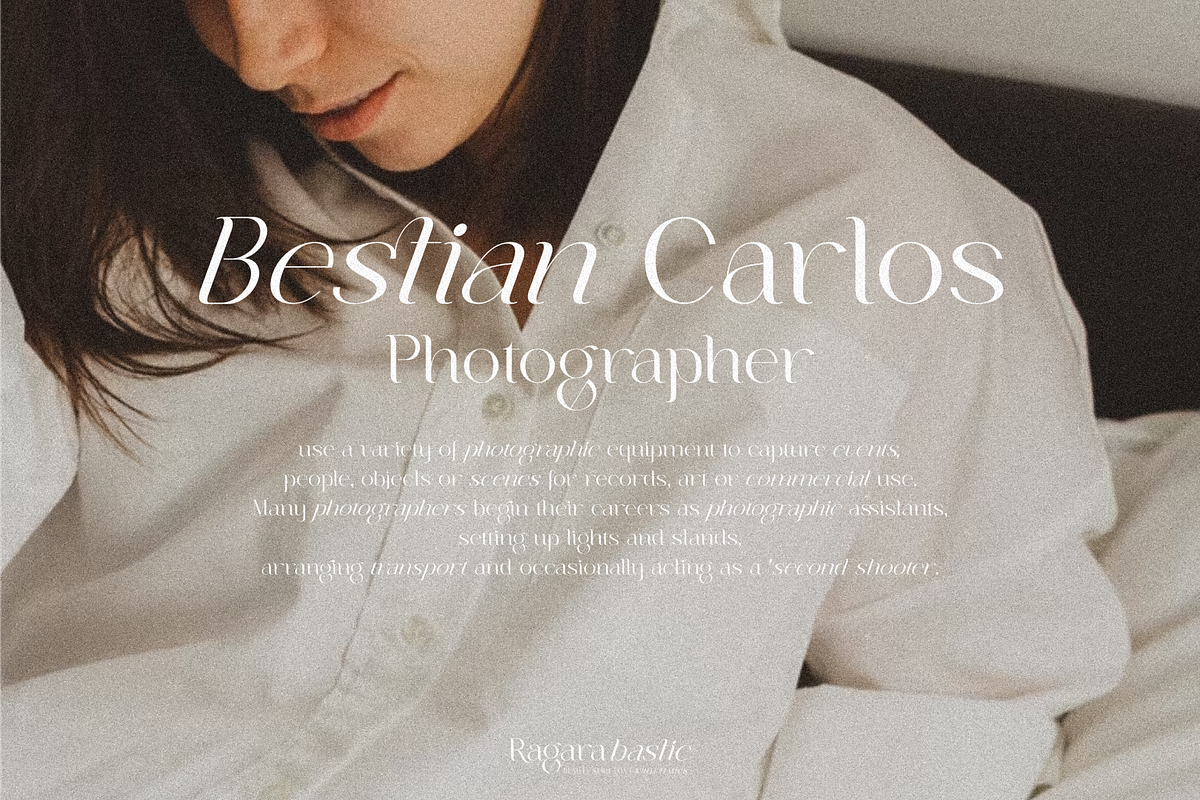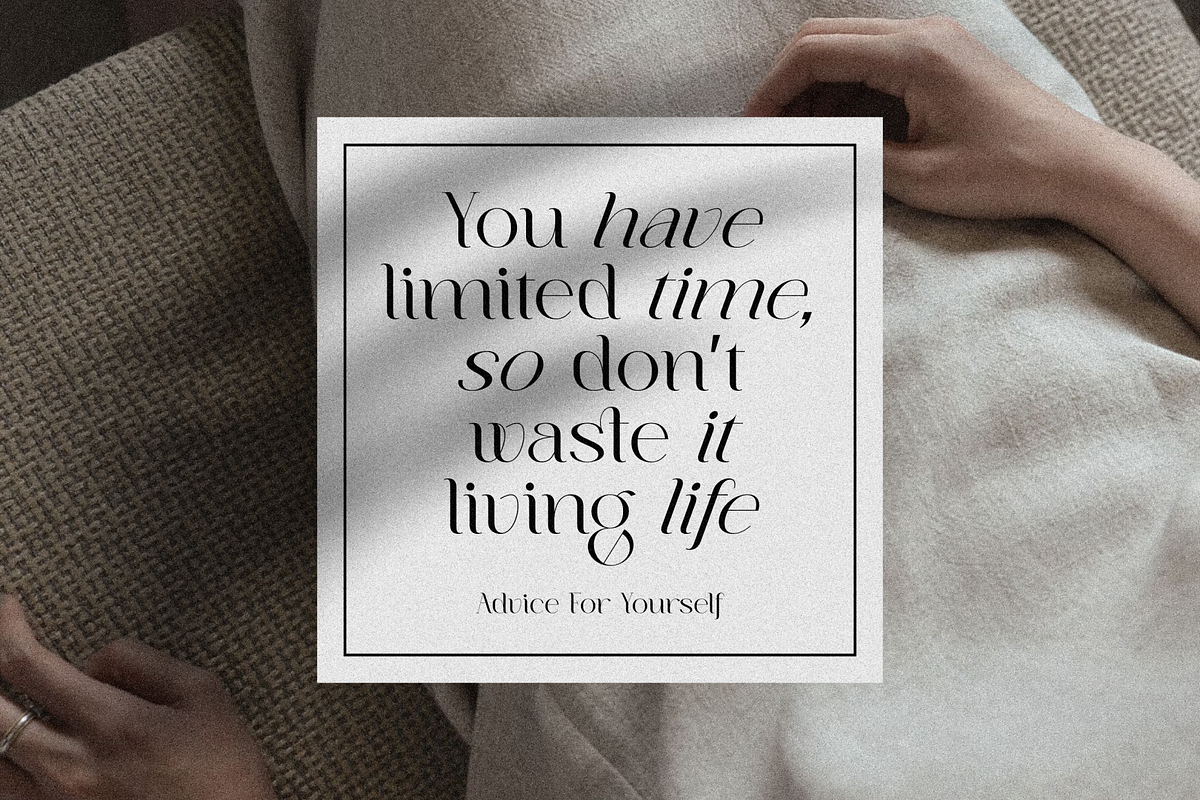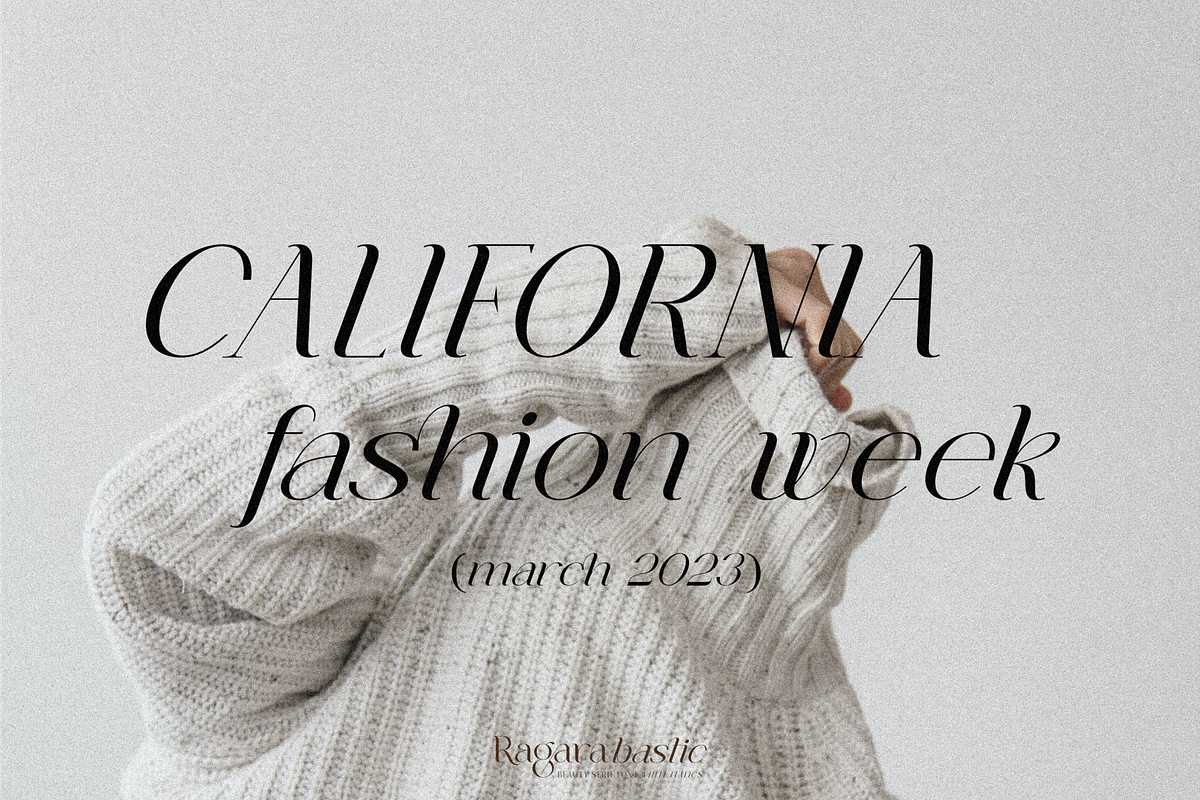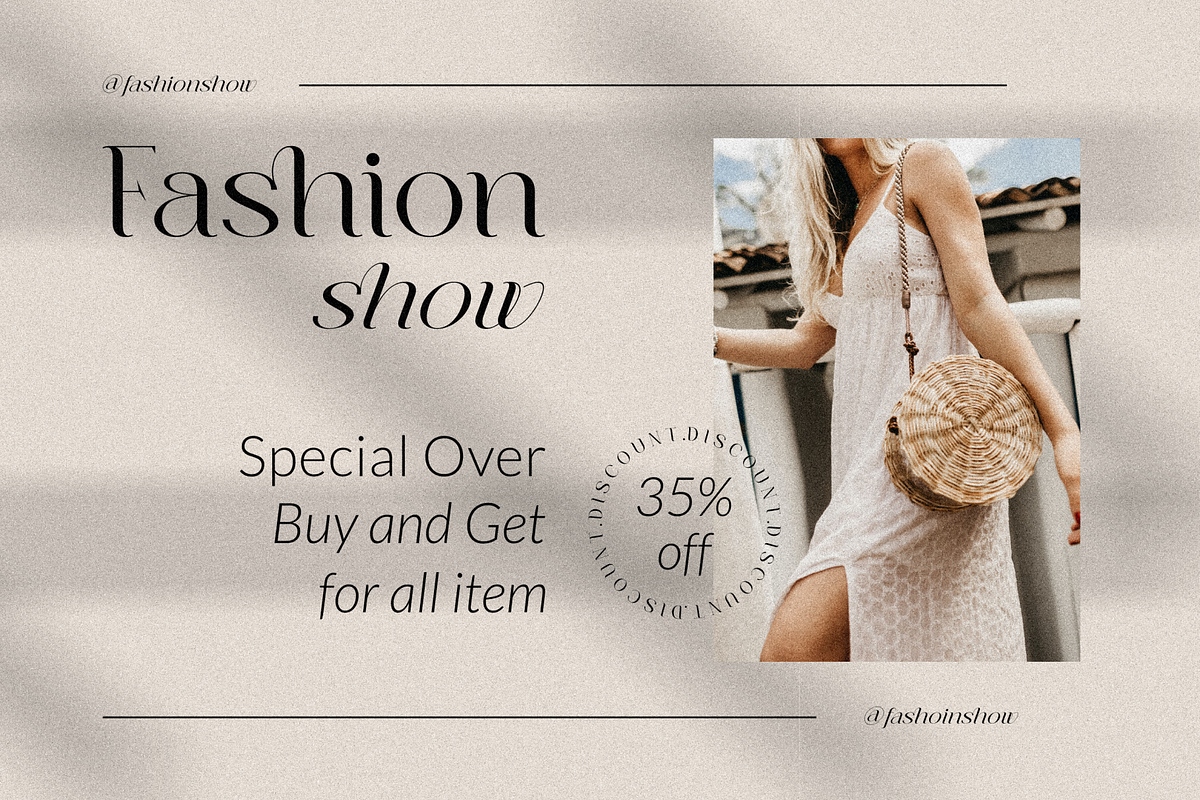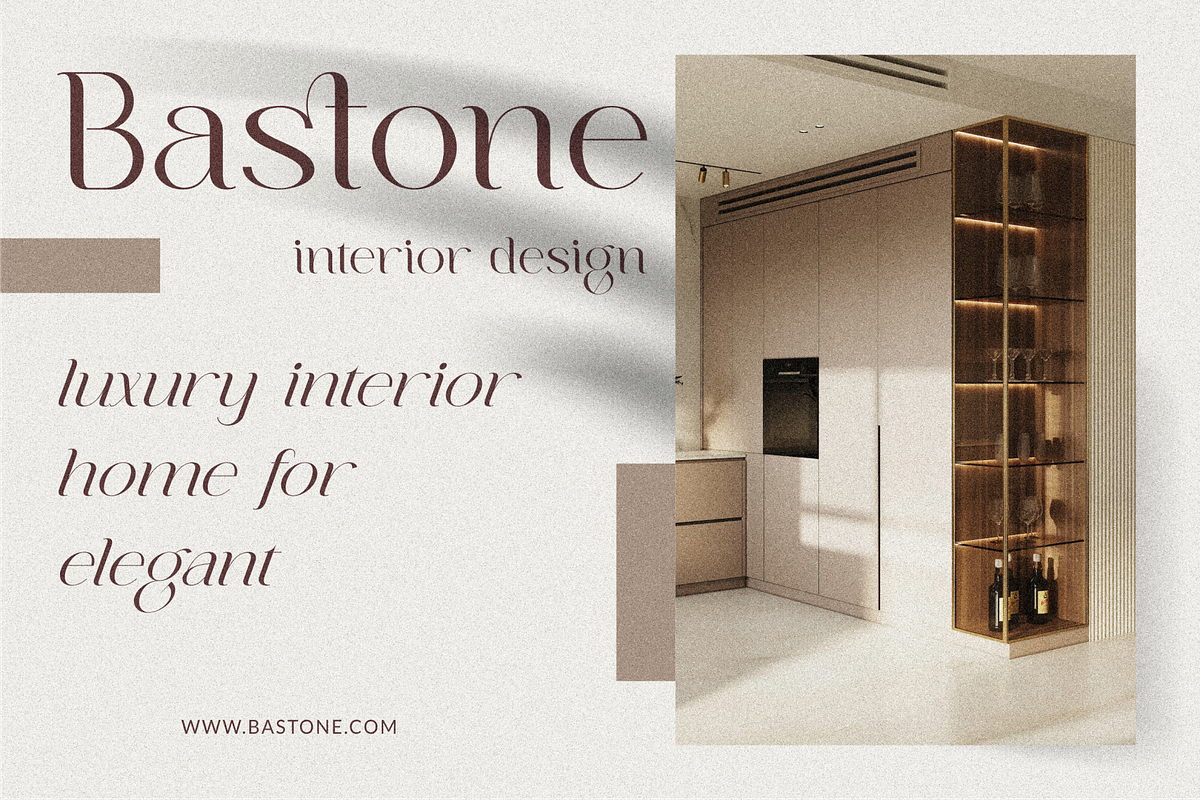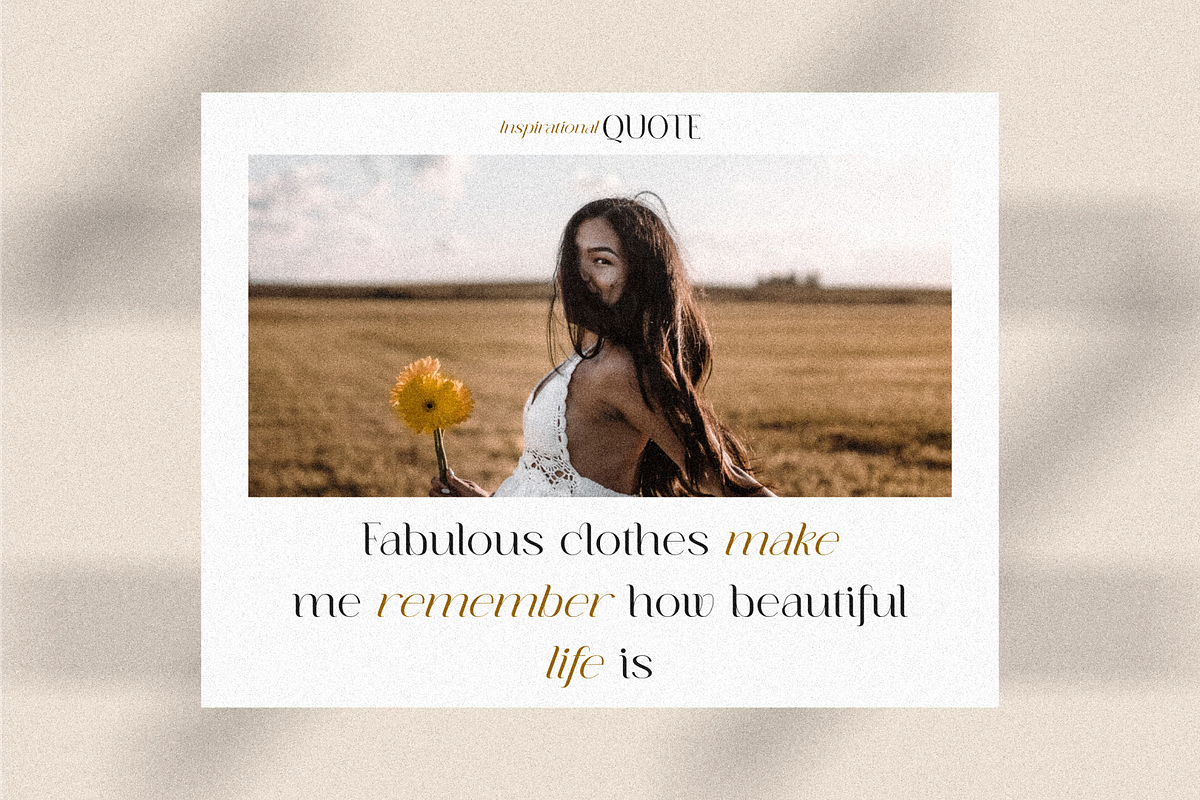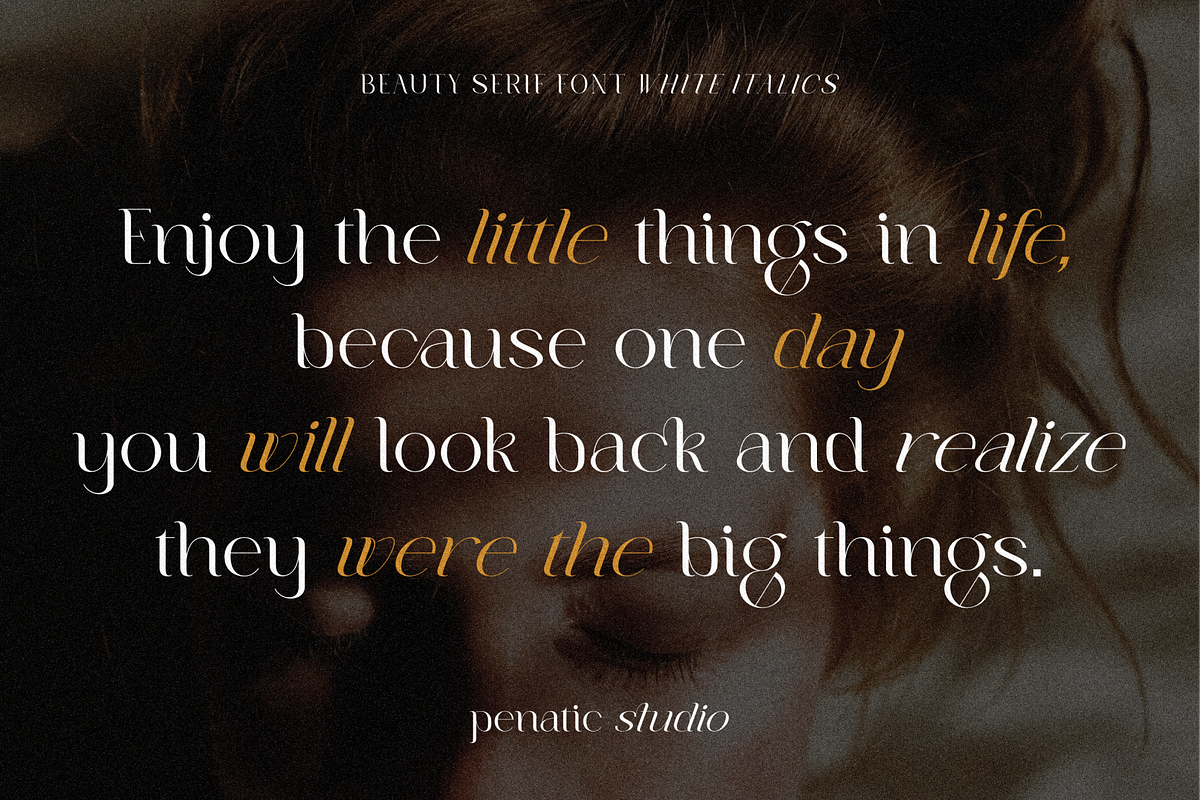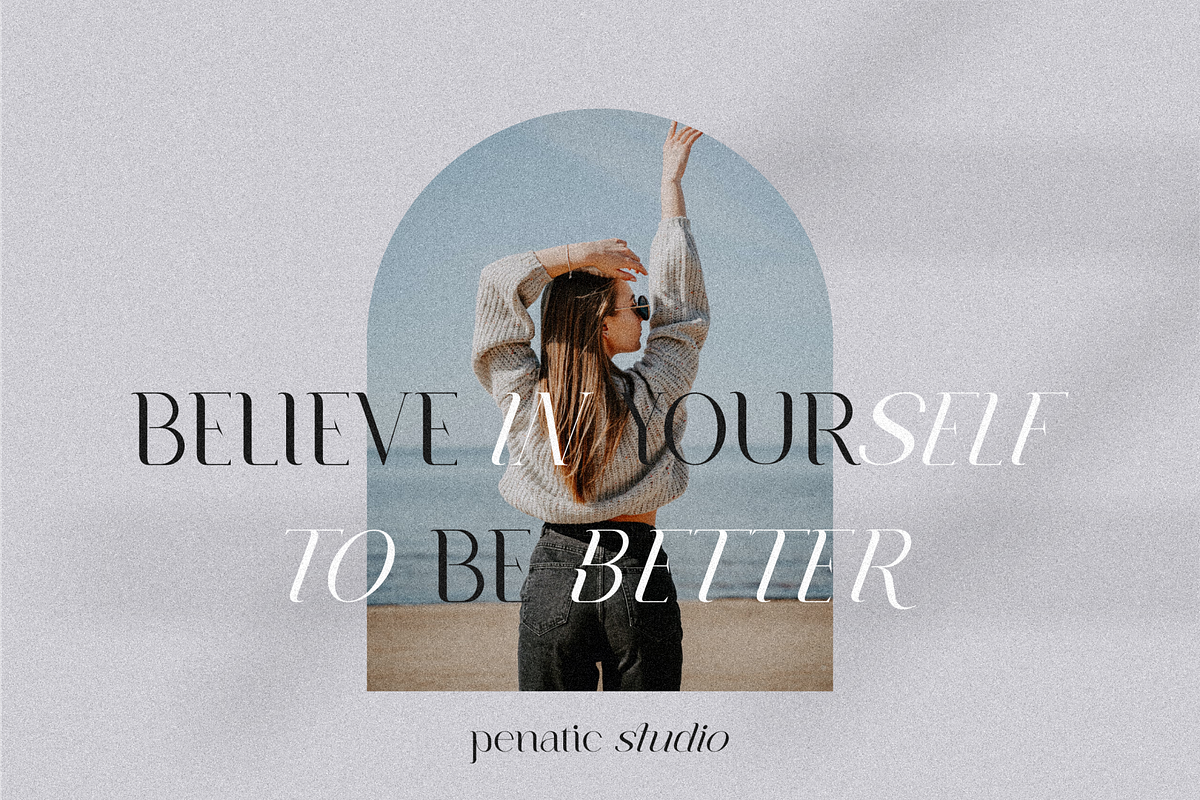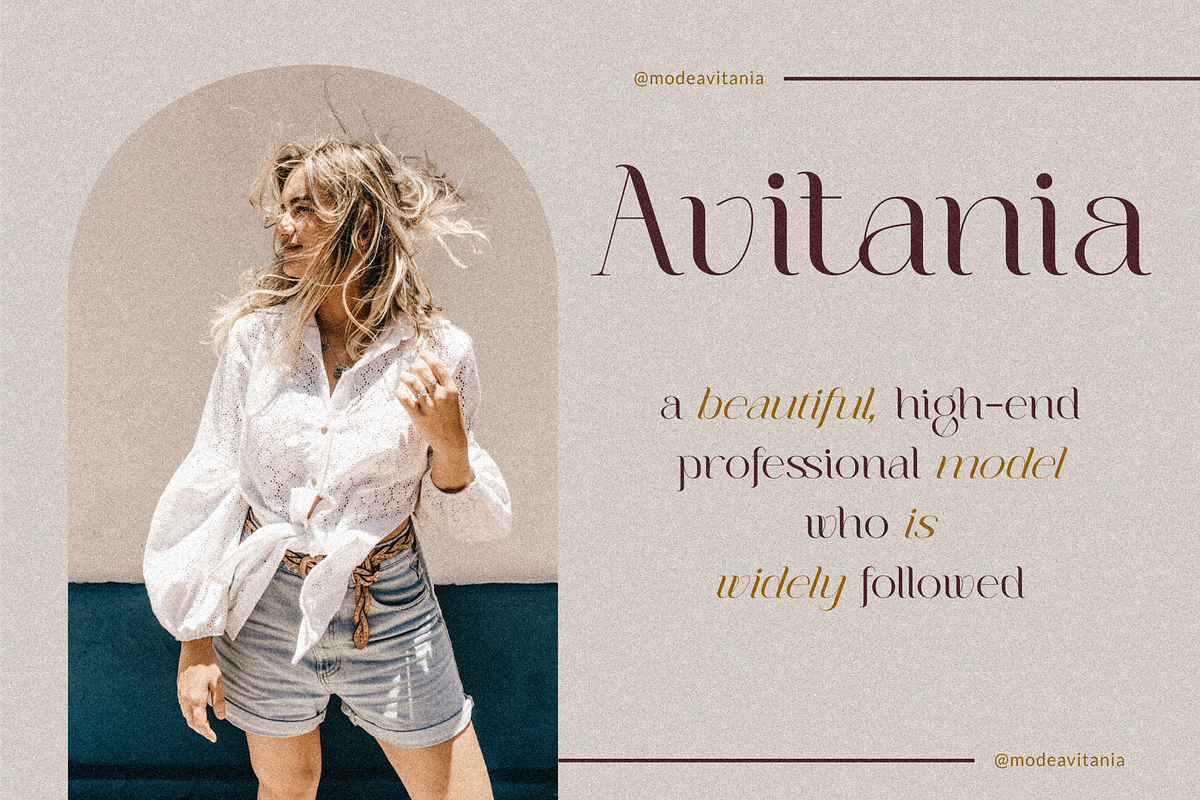
Ragara bastic
Introducing our new font called ''Ragara bastic'' which is a beautiful and elegant blend of modern regular serifs and italic serifs.
A clean-lined font with beautiful, minimalistic curves. The combination of these two font pairs will make your project come alive and look beautiful.